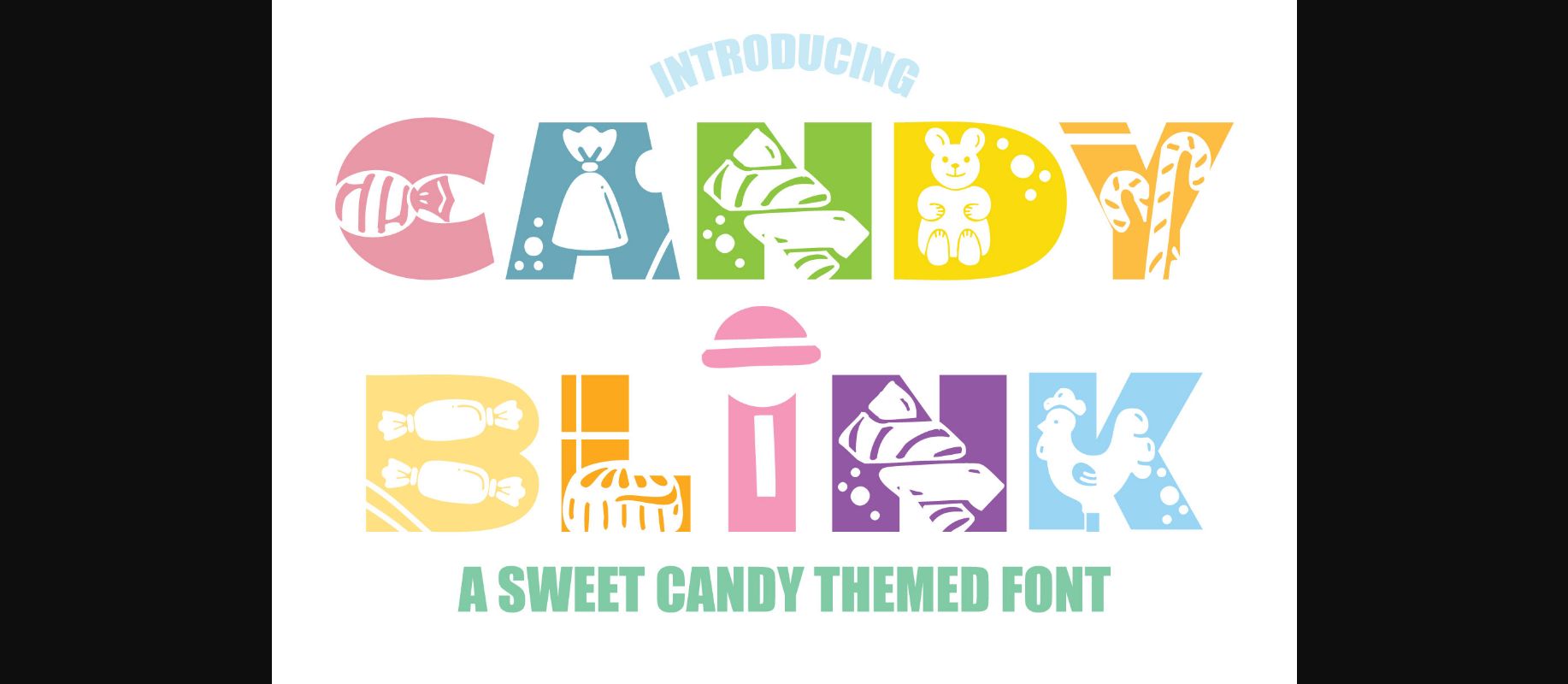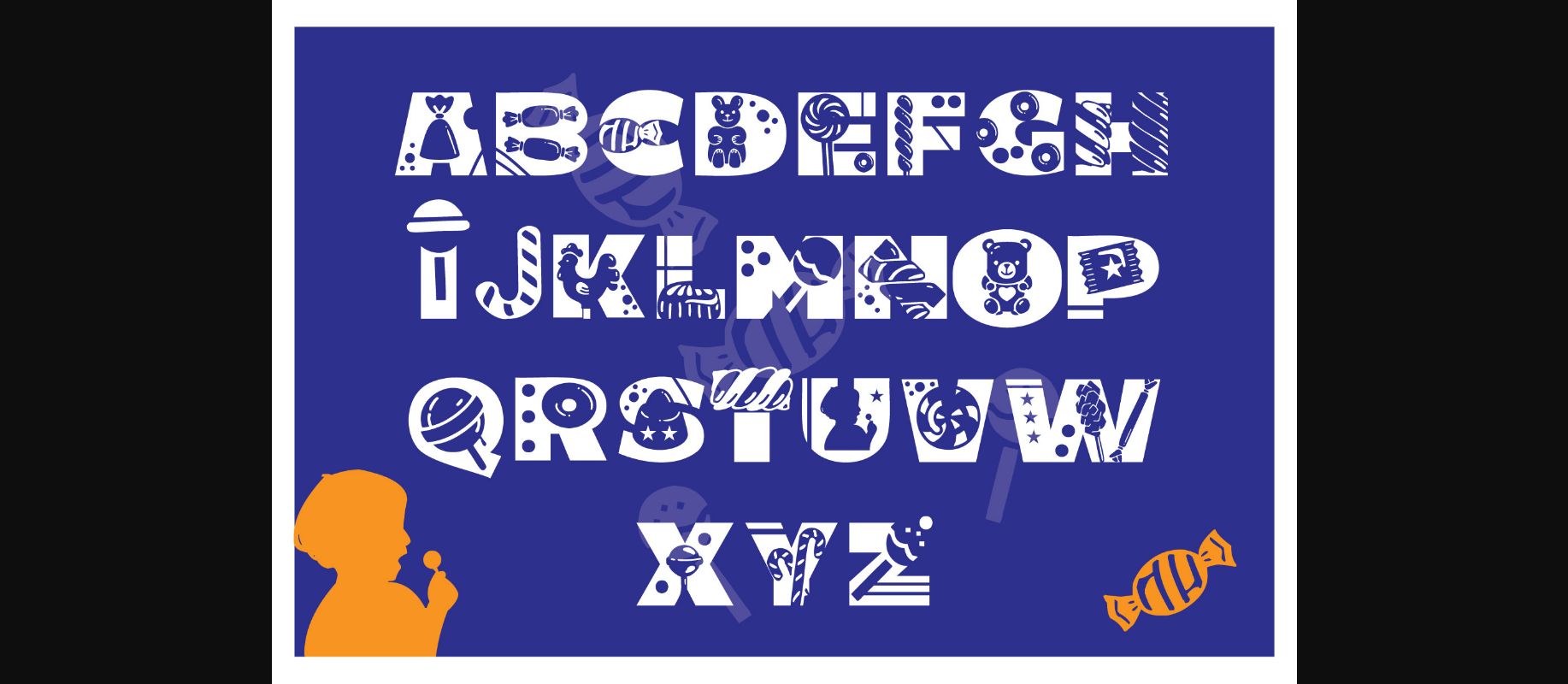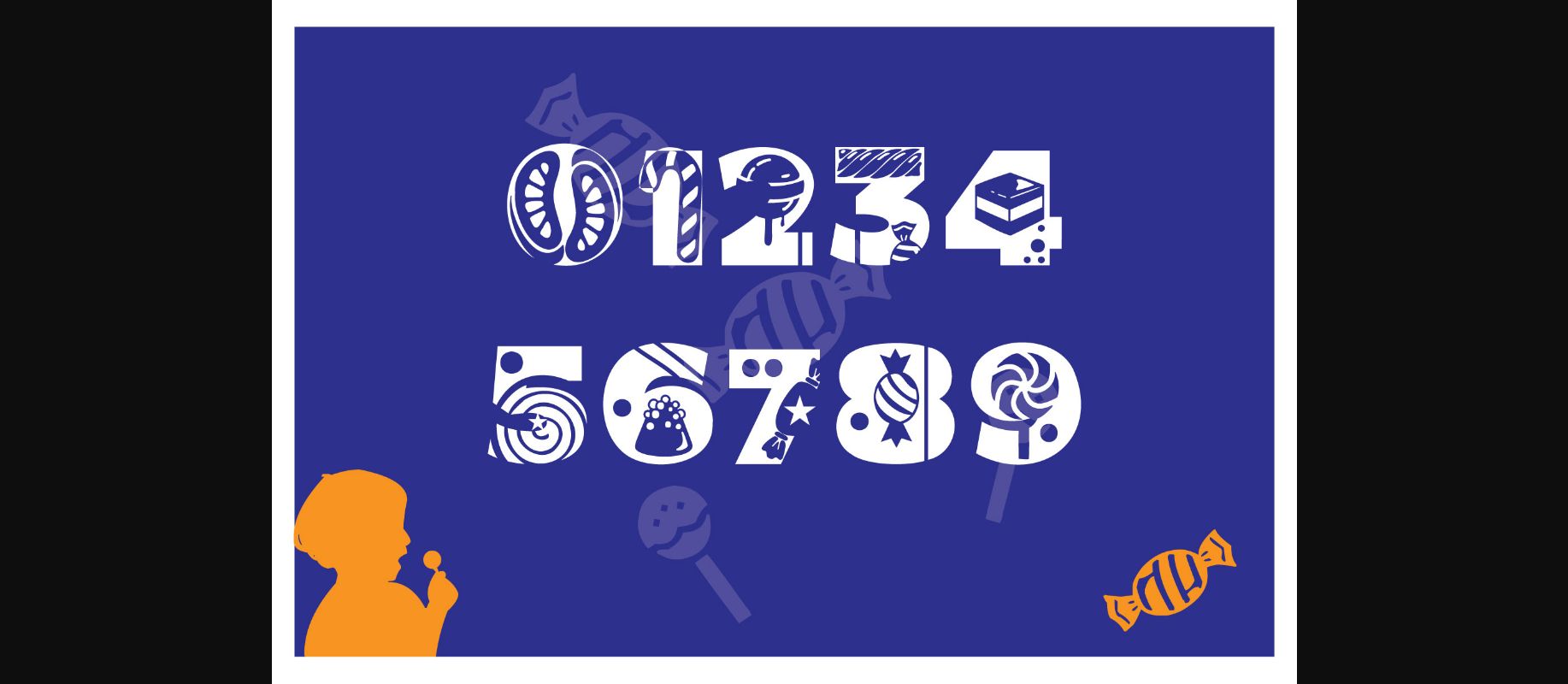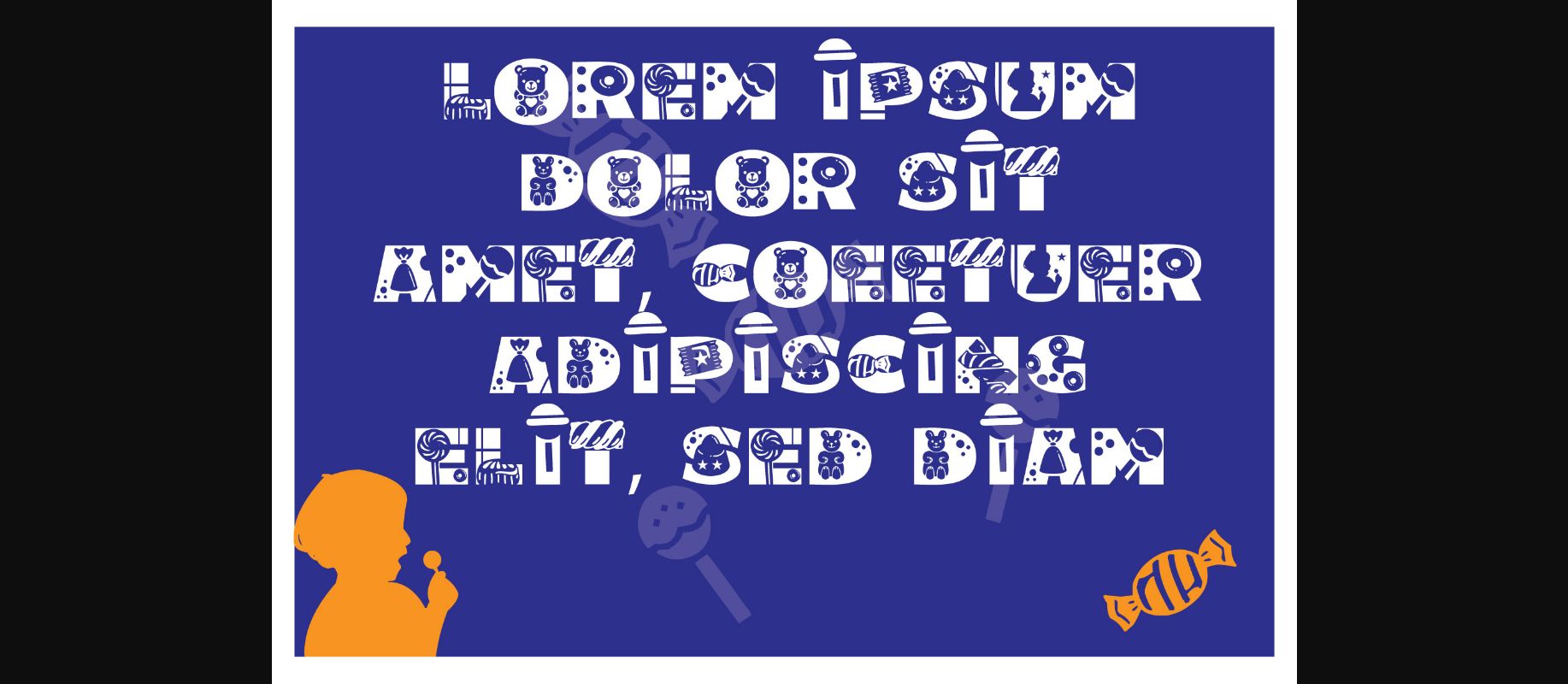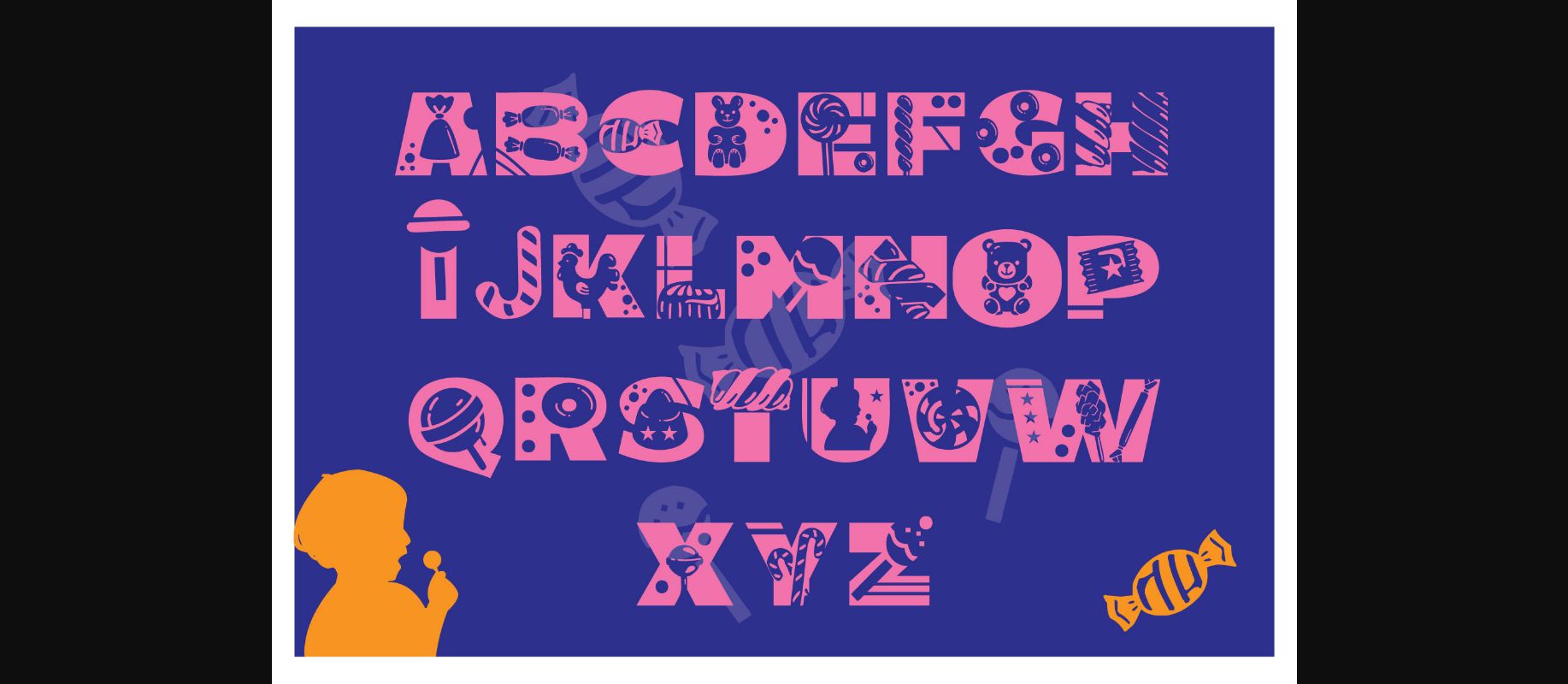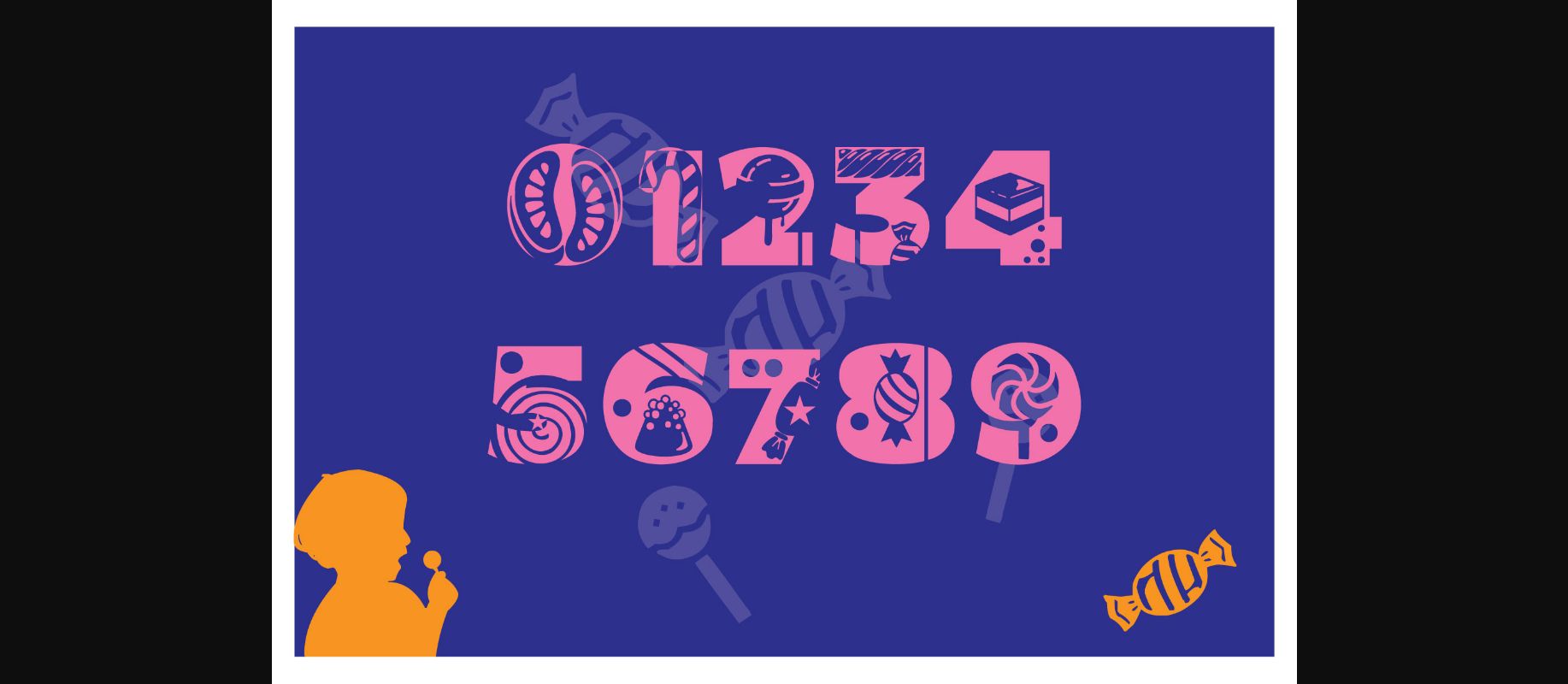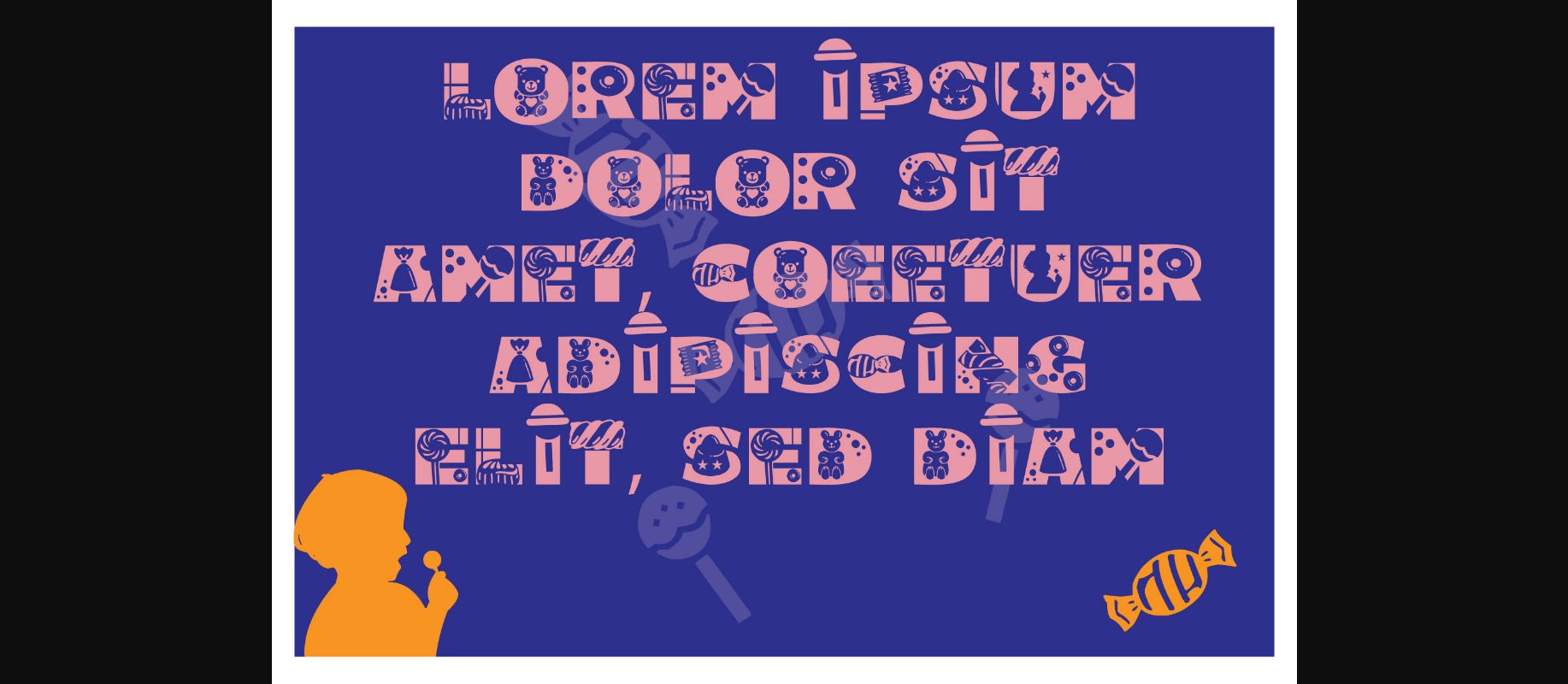
About Candy Blink Font
Candy Blink is a cool and thick lettered decorative font. It can be used for a variety of friendly or casual designs. Add it confidently to your projects, and you will love the results.